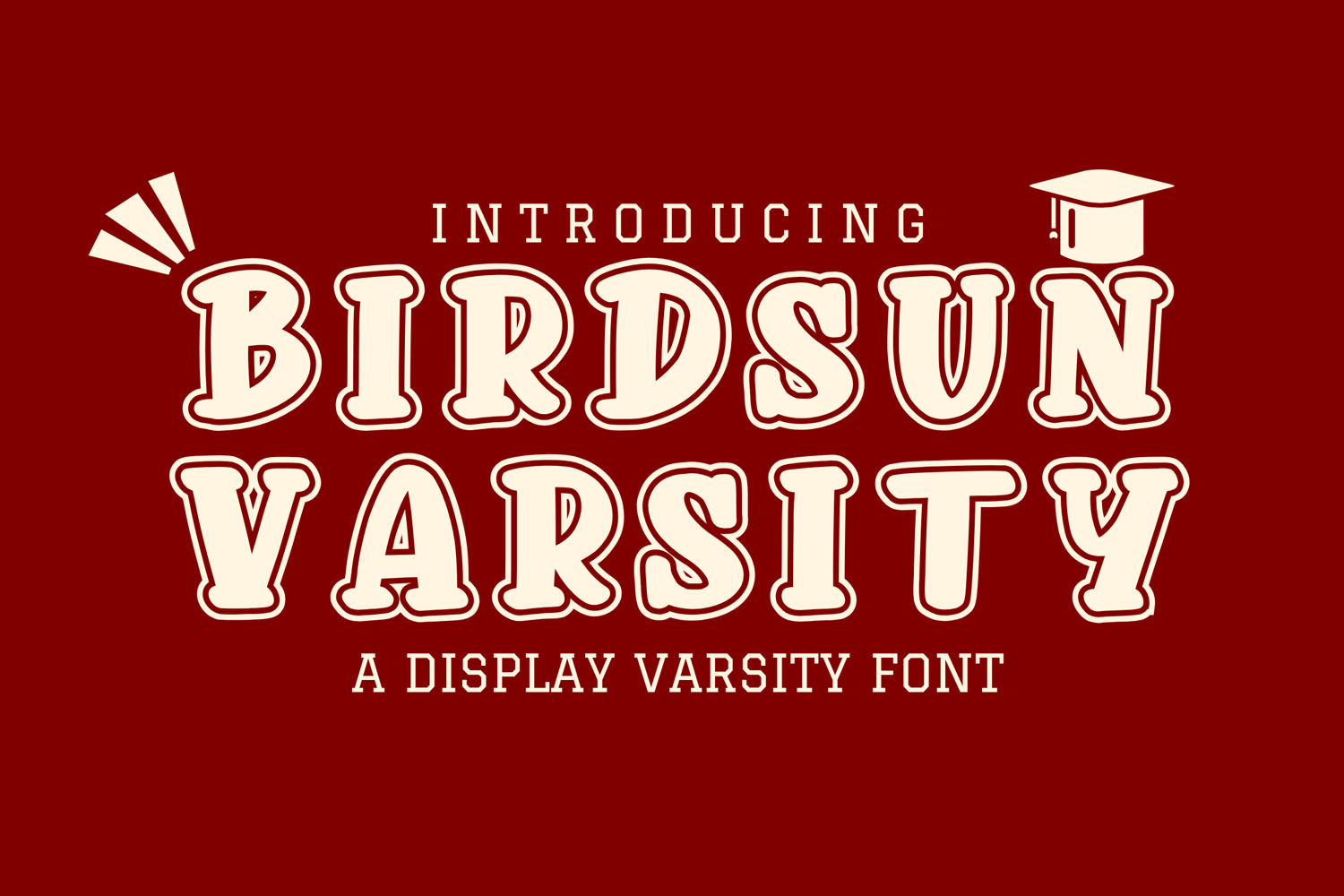
Birdsun Varsity - Bold Athletic College Font
Birdsun Varsity
Birdsun Varsity is a powerful and bold display font inspired by classic college lettering and varsity team aesthetics. With strong lines, sharp edges, and a nostalgic school spirit, this typeface is perfect for sports jerseys, team merchandise, vintage posters, and motivational quotes.
Whether you're designing for a football team, academic event, or retro apparel, Birdsun Varsity brings energy, structure, and a sense of tradition to your designs.
• A–Z uppercase characters
• Numbers, punctuation, and symbols
🧢 Perfect For:
• Sports team branding
• Game day posters
• College-themed apparel
• Athletic event signage
• School spirit merchandise
• Vintage varsity logos
• Cricut and cutting machines